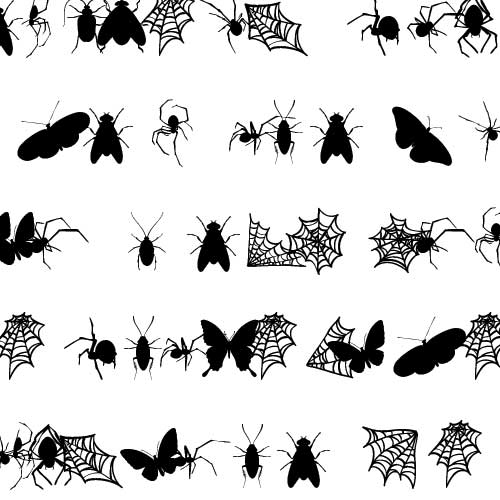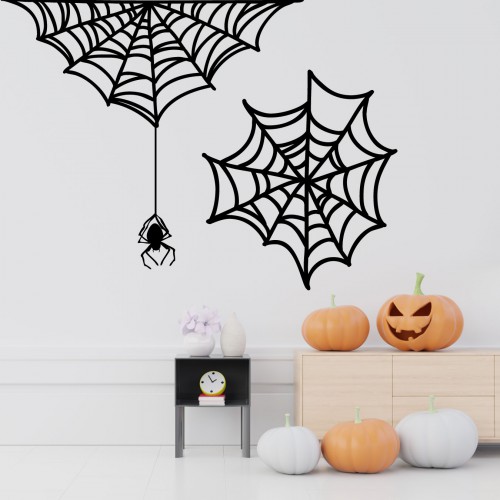
DB Caught in Cobwebs - DB
This creepy doodlebat features 26 different cobweb and insect silhouettes perfect for Halloween decor, crafts, card making, scrap book pages and more!